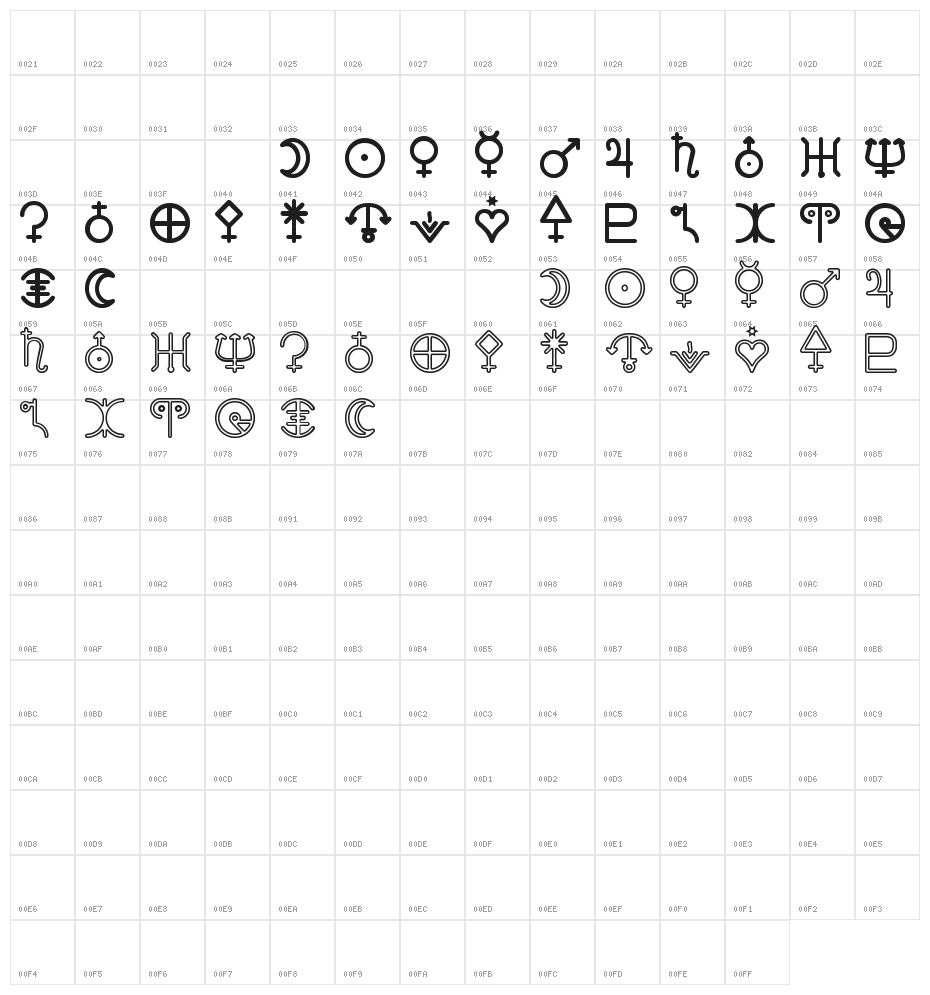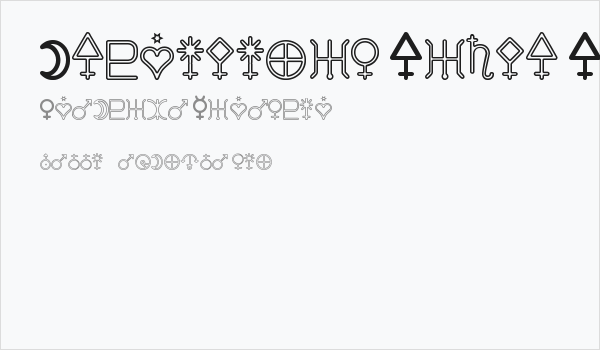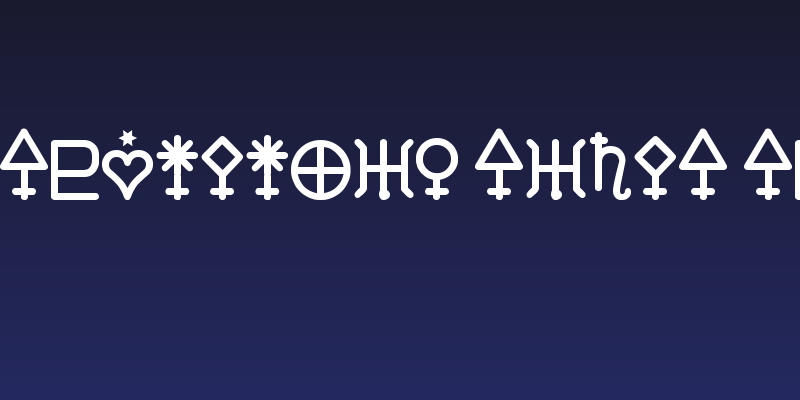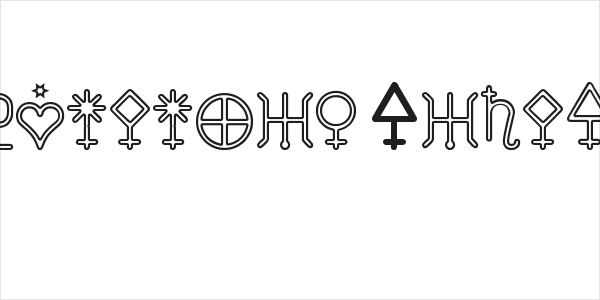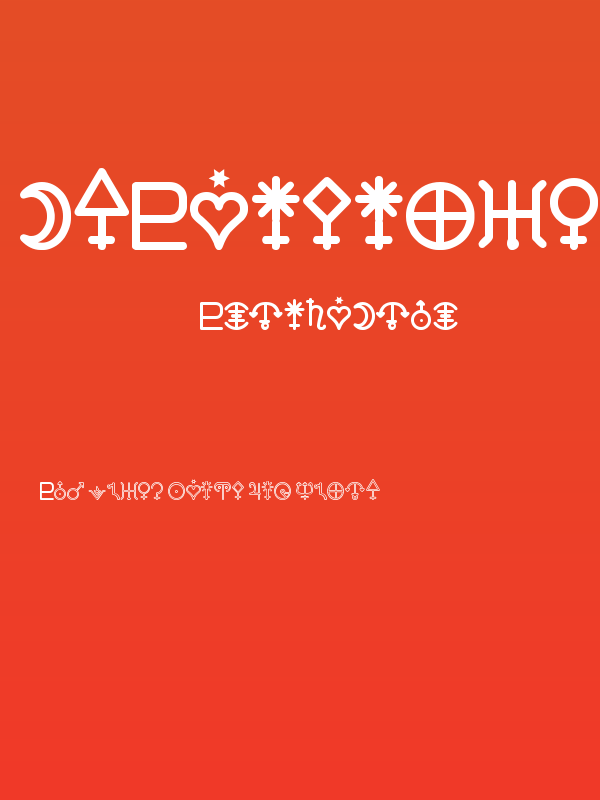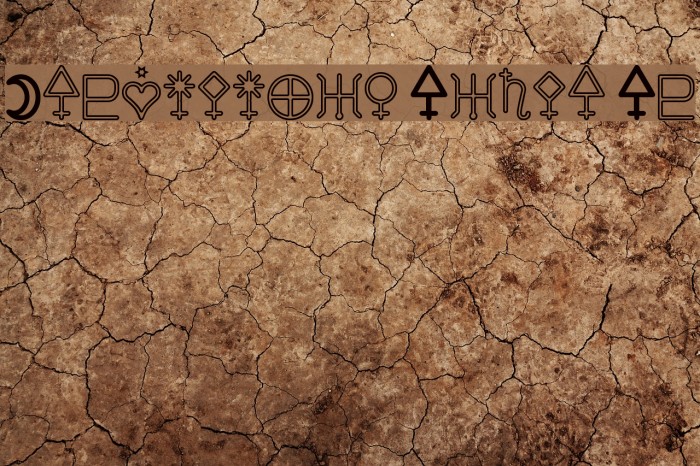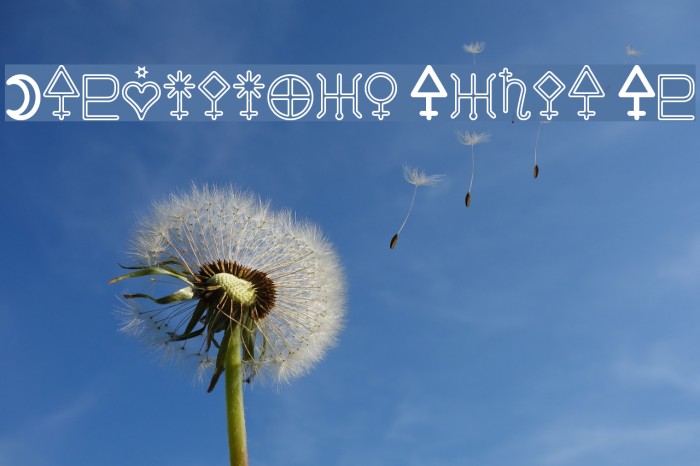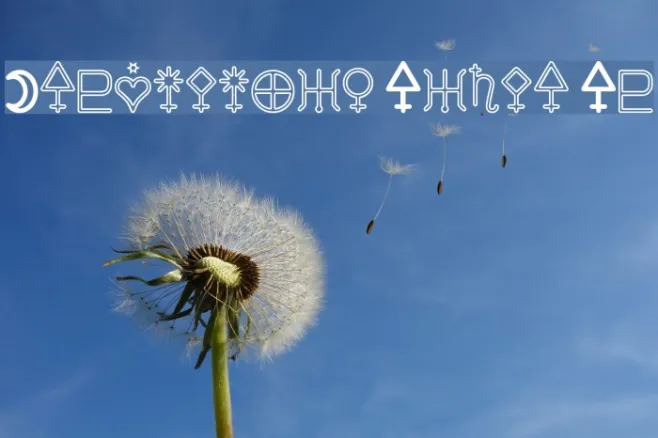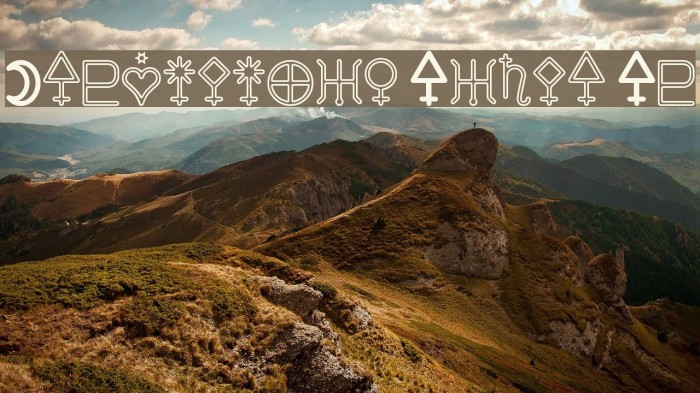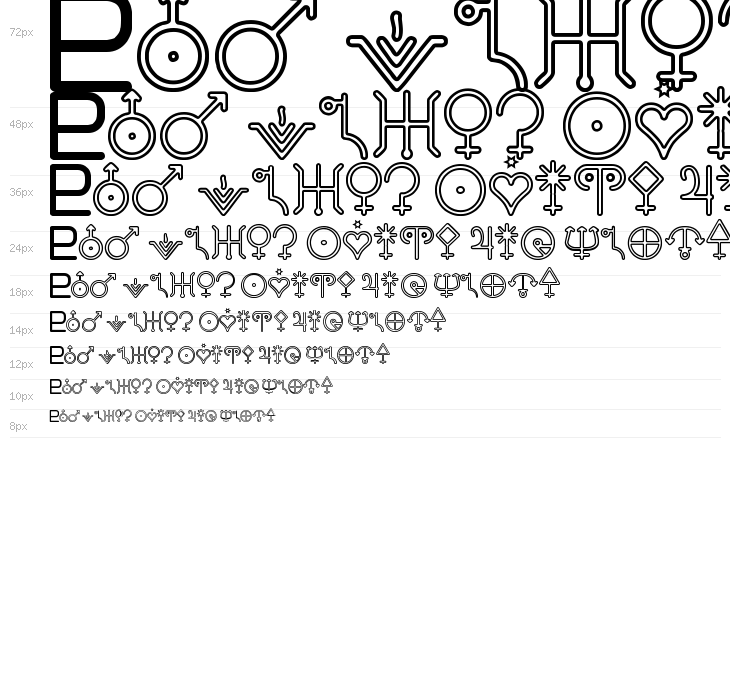
Astronomic Signs St Font
Astronomic Signs St Description
This set of symbols represents various astronomical signs, each crafted with a bold and clear outline. The symbols are distinct and easily recognizable, featuring a mix of circular and linear elements that convey a sense of cosmic and mystical themes. The design is consistent across all symbols, maintaining a uniform thickness that ensures legibility and visual harmony. These symbols are ideal for projects that require a touch of the celestial or astrological, offering a unique way to incorporate these ancient symbols into modern design contexts.
| Use Case | Logos, Decorative elements, Educational materials |
| Proposed Projects | Ideal for use in astrology apps, educational materials about astronomy, themed event posters, or as decorative elements in graphic design projects. |